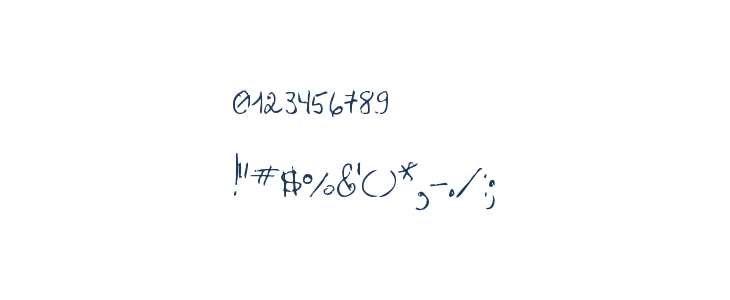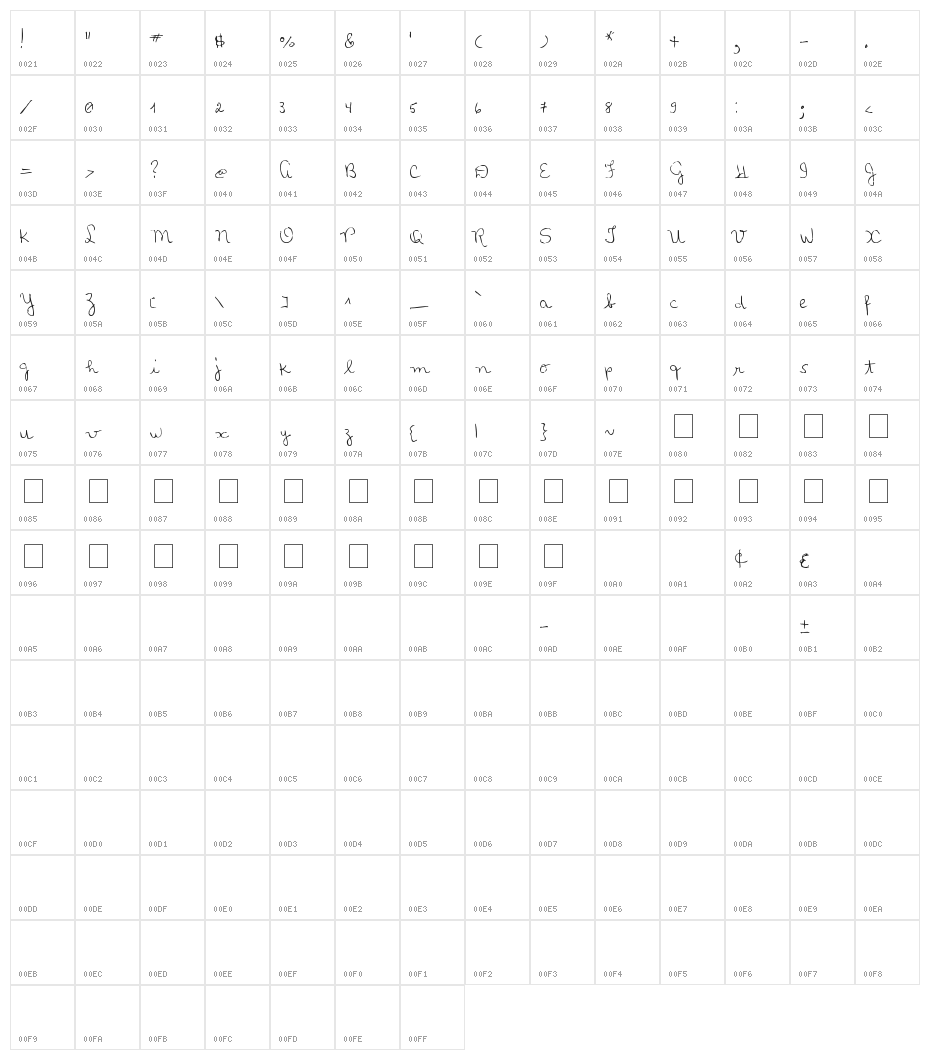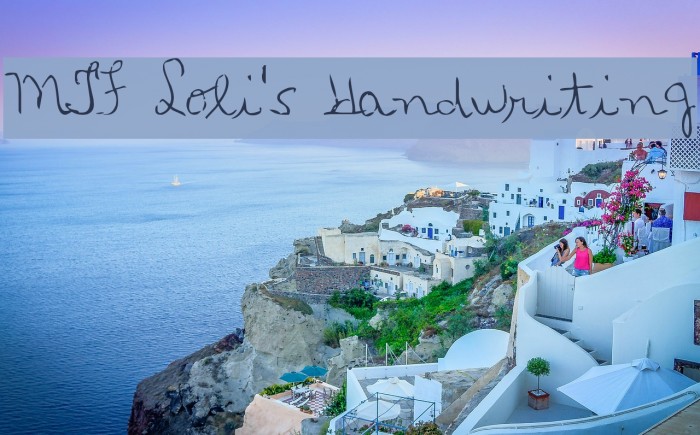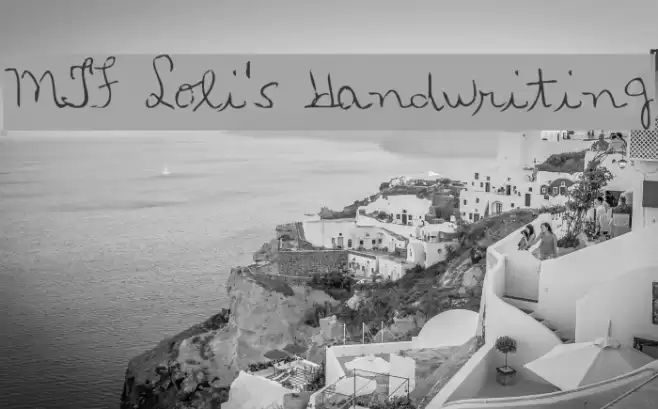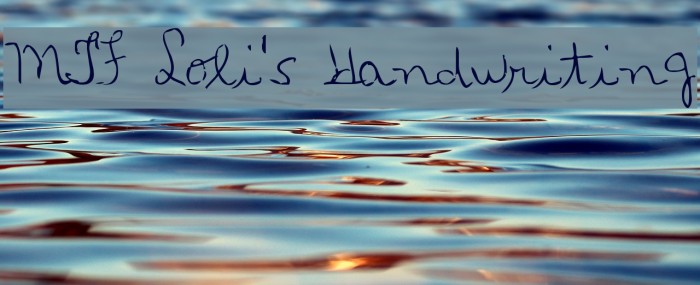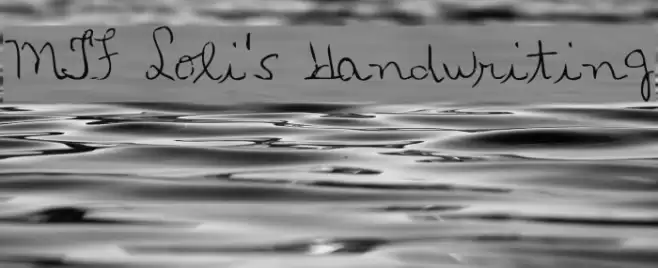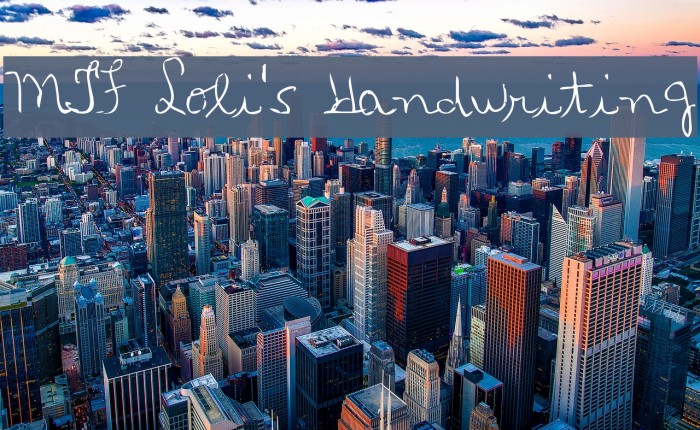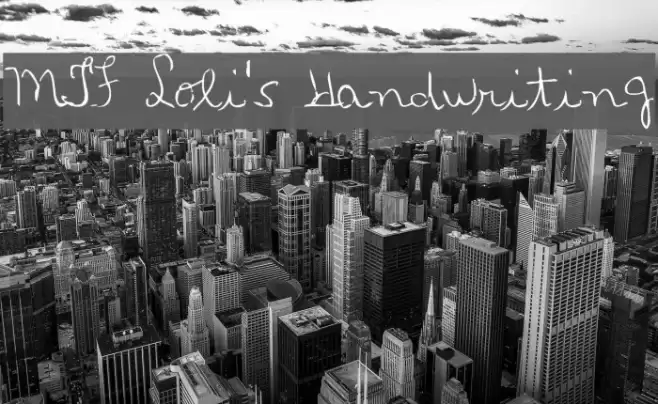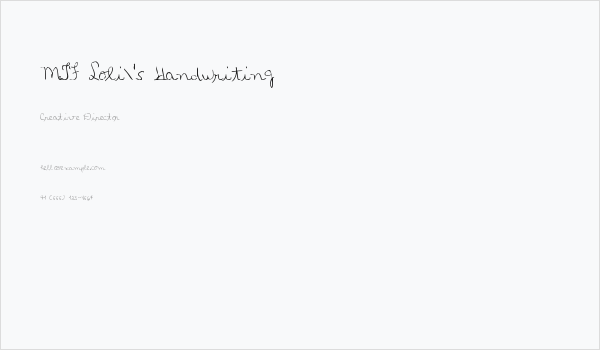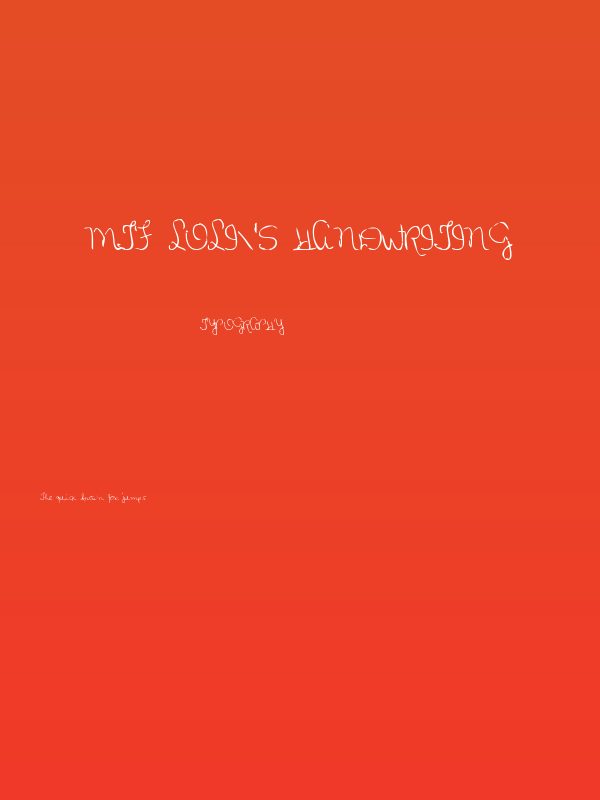
MTF Loli's Handwriting Font
MTF Loli's Handwriting Description
This font features a playful and whimsical handwritten style, characterized by its flowing and irregular strokes that mimic natural handwriting. The uppercase letters are bold and slightly exaggerated, with unique loops and curves that add a touch of personality. The lowercase letters maintain a consistent flow, with some letters connecting seamlessly to others, enhancing the handwritten feel. Numbers and special characters are crafted with the same playful style, ensuring a cohesive look across all characters. This font exudes a casual and friendly vibe, making it ideal for projects that require a personal touch.
| Proposed Projects | Ideal for greeting cards, personal invitations, children's books, and creative branding projects. |